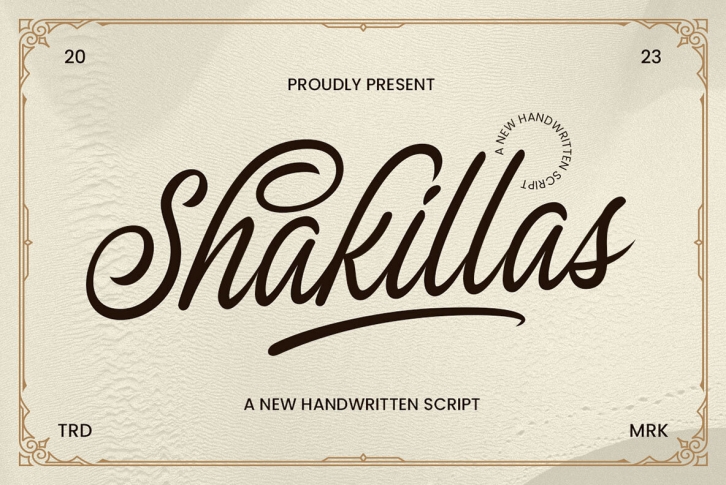
Introducing The Shakillas, a handwritten script font that combines casual flair with a touch of femininity. Its natural charm and well-crafted ligatures make it perfect for various formal applications such as invitations, labels, logos, magazines, books, greeting/wedding cards, packaging, fashion, makeup, stationery, novels, and advertising.
Features include:
- Uppercase & lowercase
- Numbers and punctuation
- Alternates & Ligatures